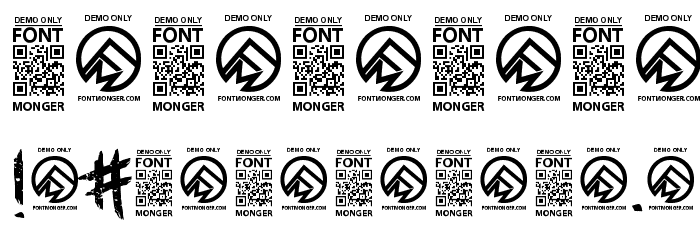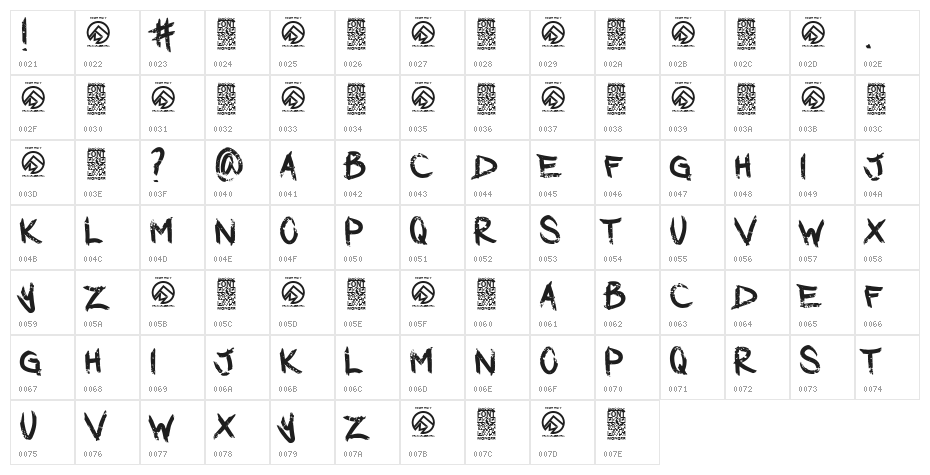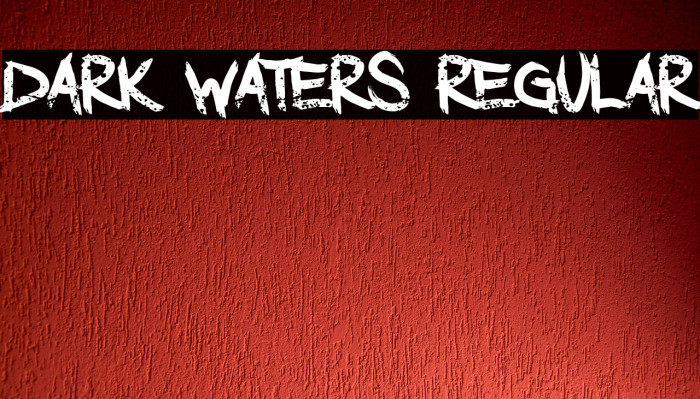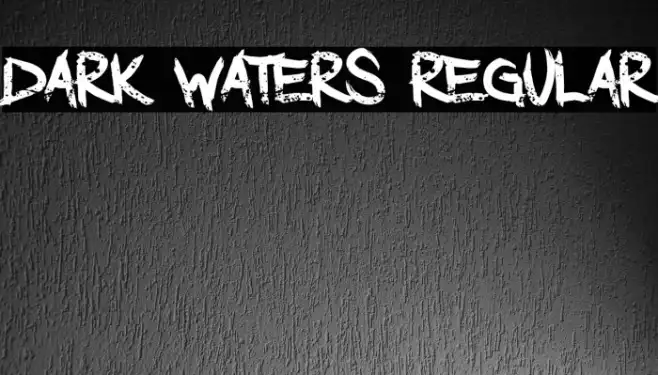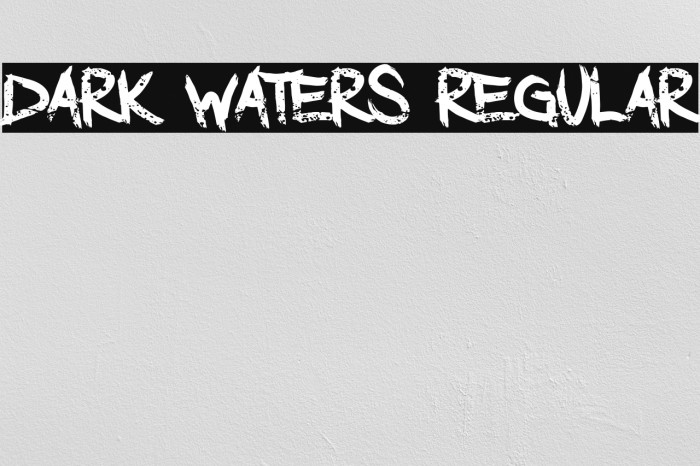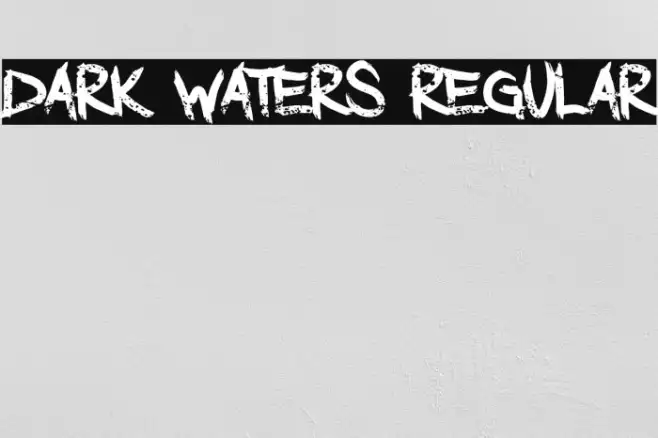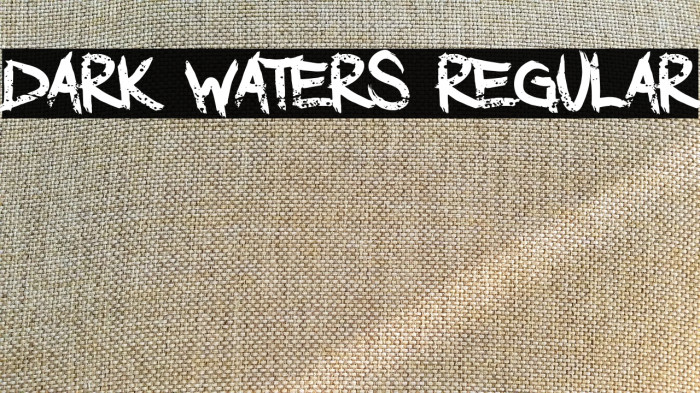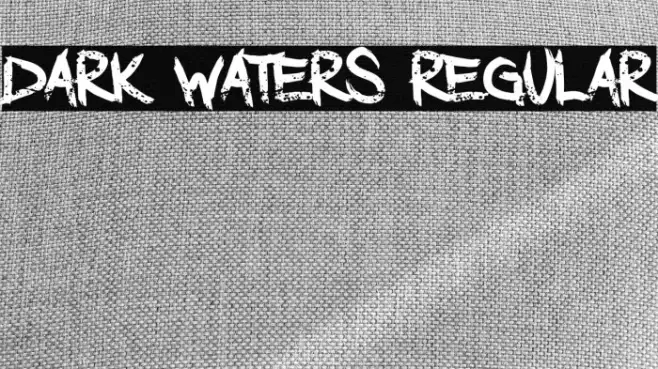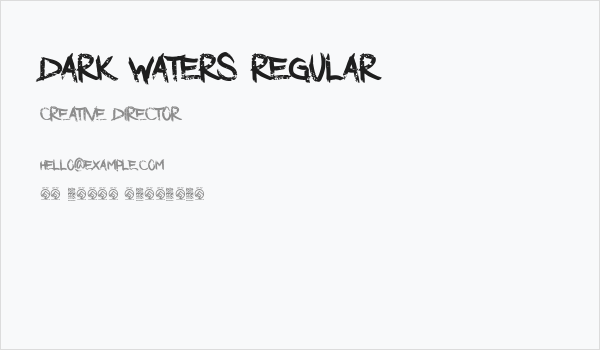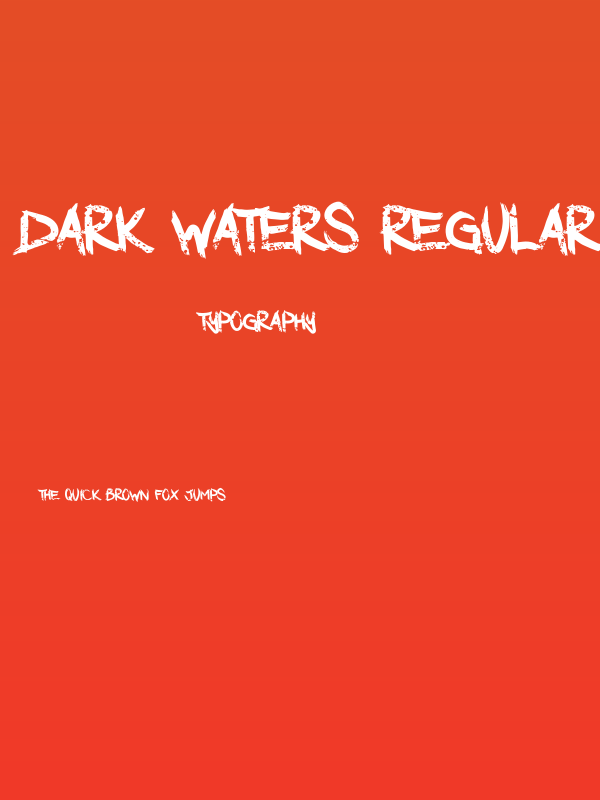
Dark Waters Regular Font
Dark Waters Regular Description
This font features a bold and edgy design with a distressed, grunge-like appearance. The characters are irregular and jagged, giving them a raw, hand-drawn feel. The uppercase letters are particularly striking, with uneven strokes and splatter effects that add to the chaotic aesthetic. The lowercase letters maintain this rugged style, ensuring consistency throughout the typeface. The numbers and special characters also follow this theme, making the font suitable for projects that require a rebellious or urban vibe. Its unique style makes it stand out, perfect for creative and unconventional designs.
| Overall Style | Grunge, Urban, Edgy |
| Proposed Projects | Ideal for album covers, street art-inspired designs, edgy posters, and branding for alternative or punk-themed projects. |